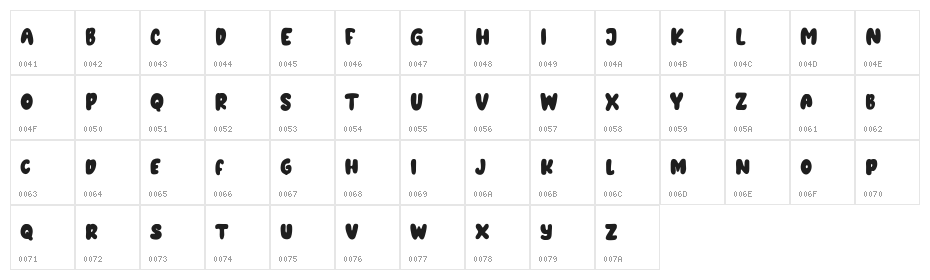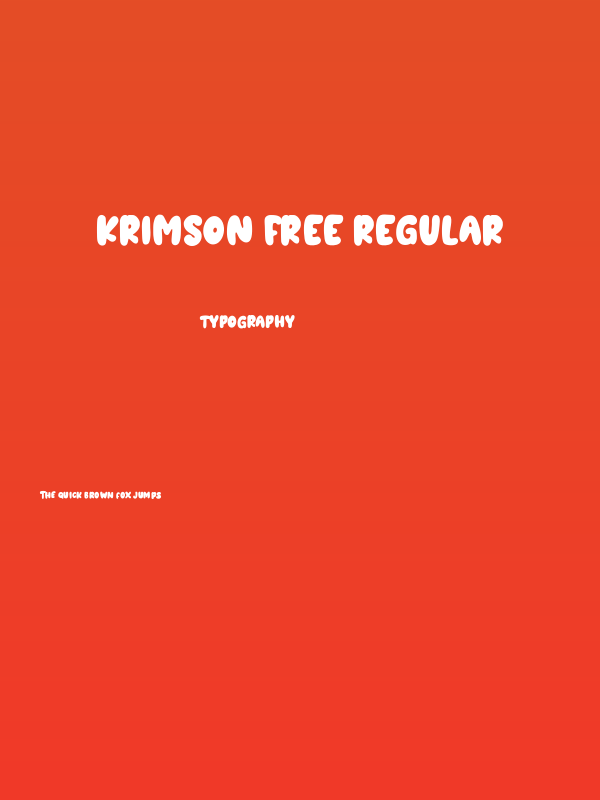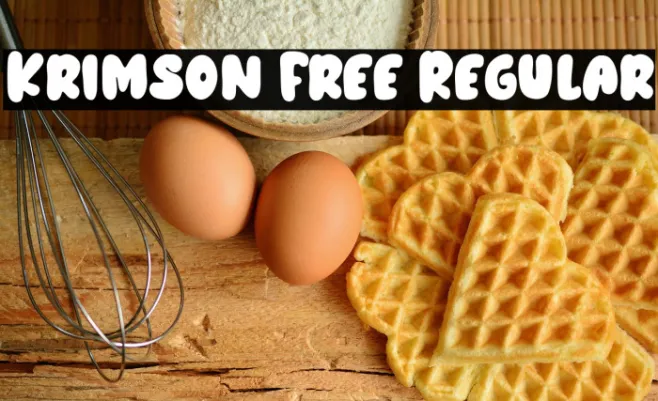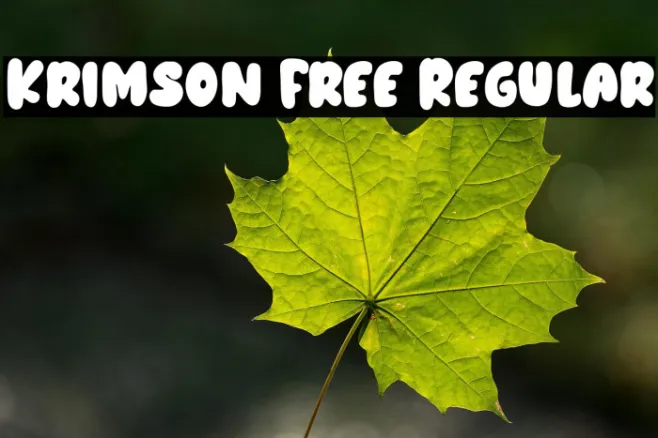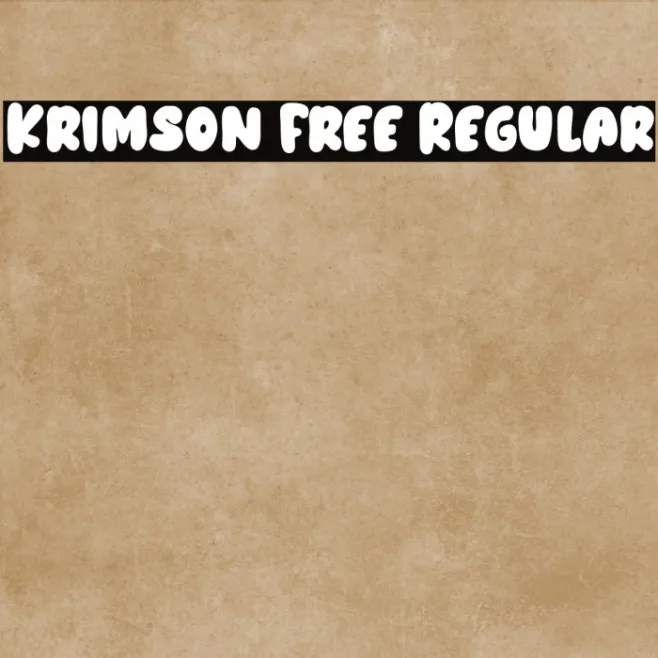
Krimson Free Regular Font
Krimson Free Regular Description
This font features a bold and playful design with rounded, bubbly characters that exude a sense of fun and whimsy. The letters are thick and substantial, creating a strong visual impact. The rounded edges and uniform stroke width contribute to a friendly and approachable appearance. This style is reminiscent of retro or vintage designs, making it suitable for projects that aim to capture a nostalgic or playful vibe. The font maintains consistent character spacing, ensuring readability while adding a touch of personality to any text. Its unique style makes it ideal for creative and eye-catching designs.
| Overall Style | Playful, Retro |
| Proposed Projects | Ideal for children's books, playful branding, retro-themed posters, and creative advertising. |